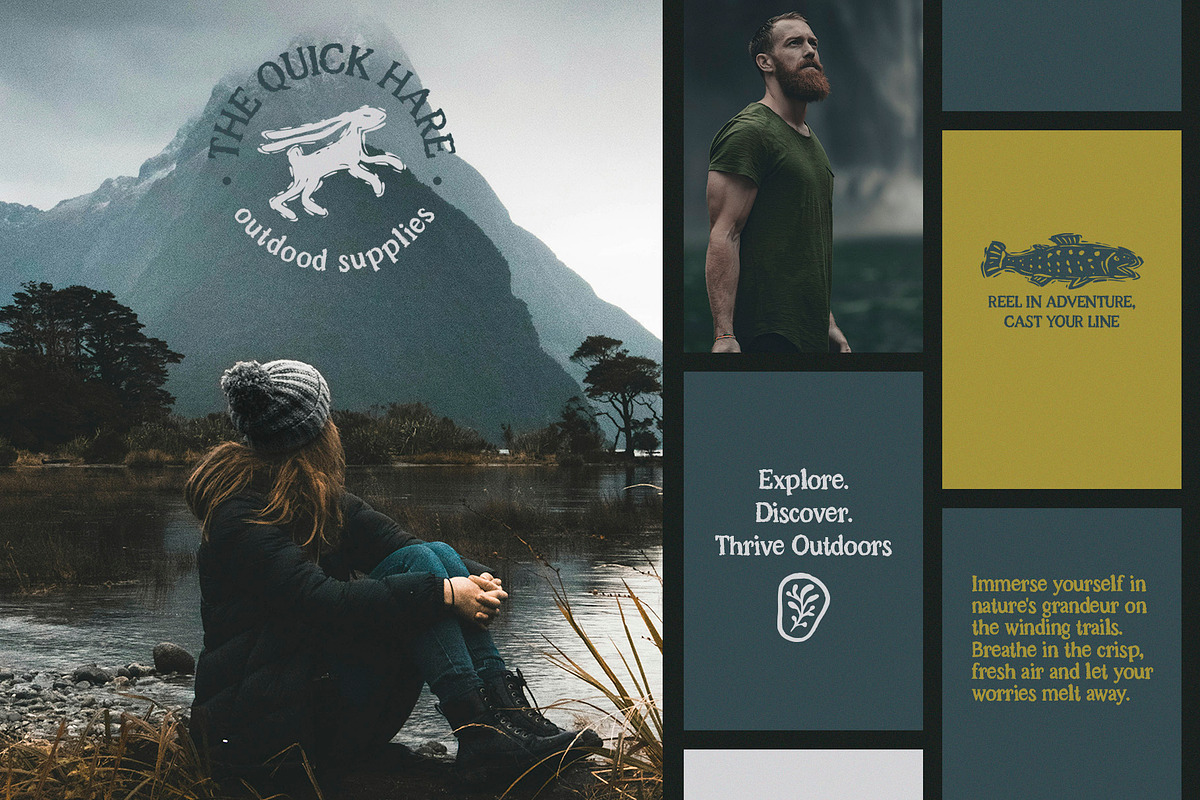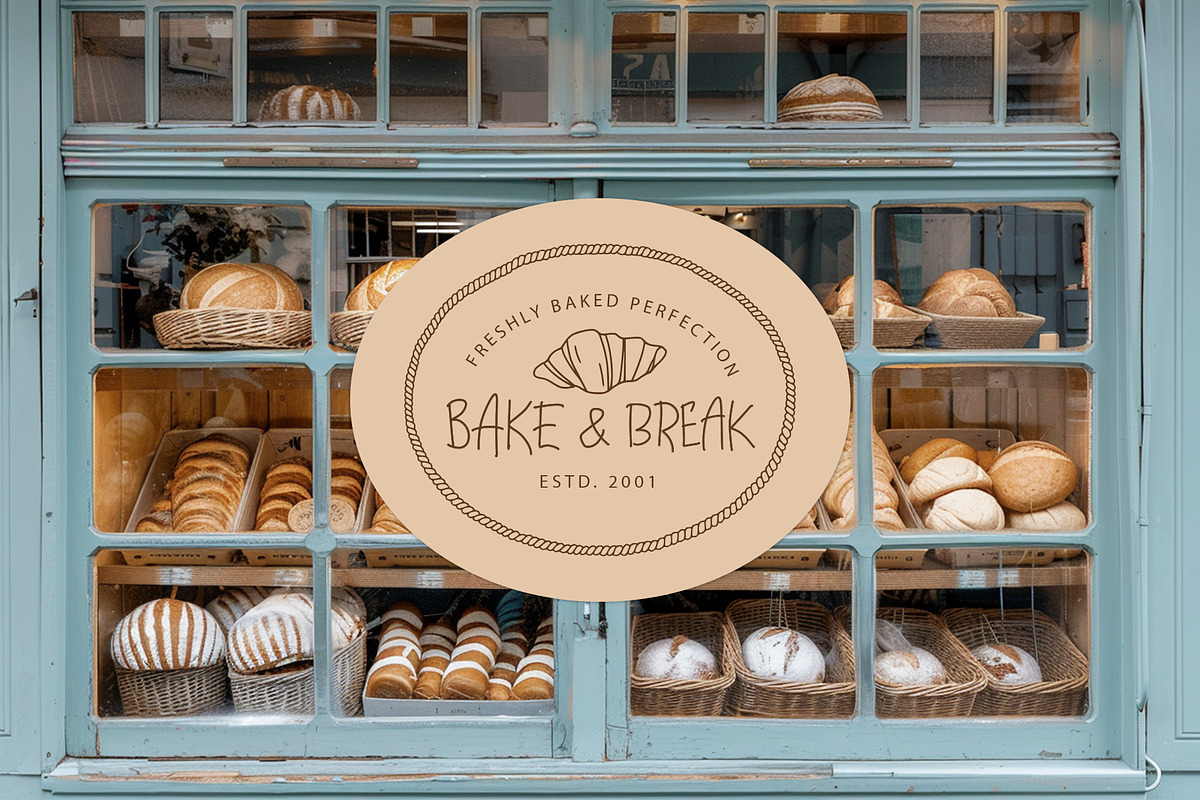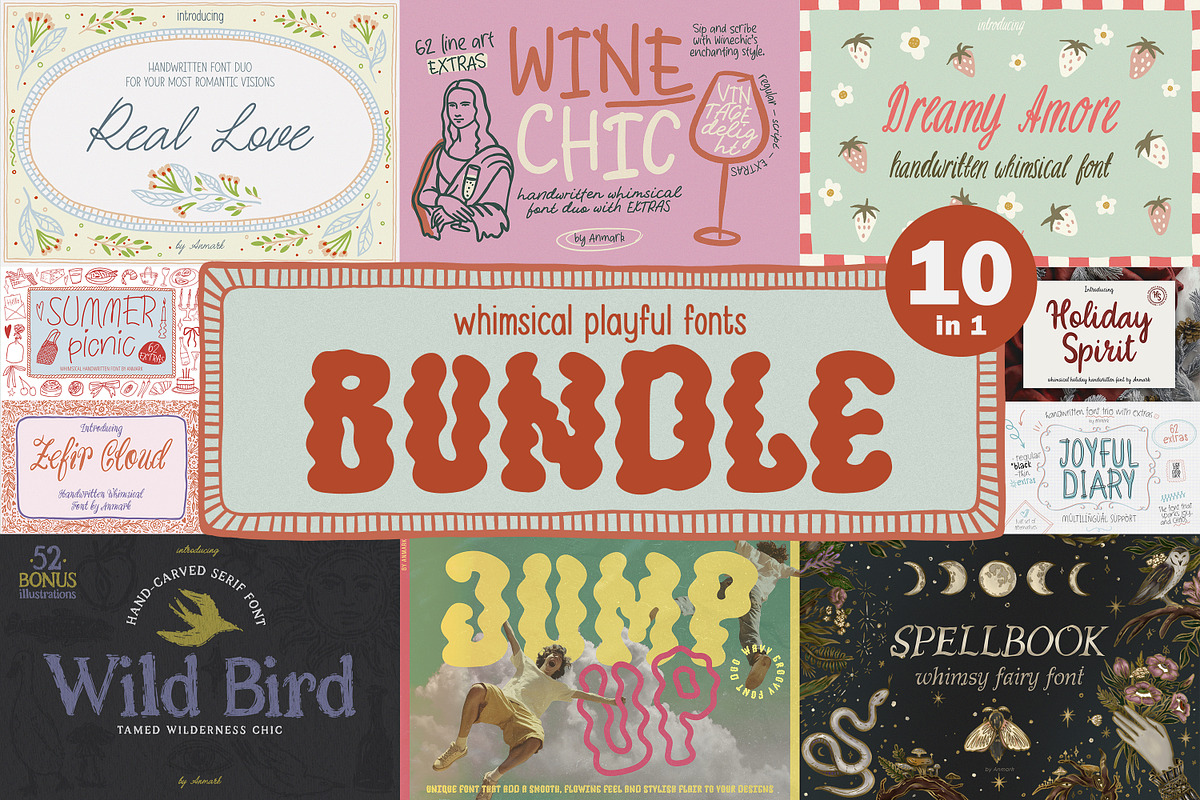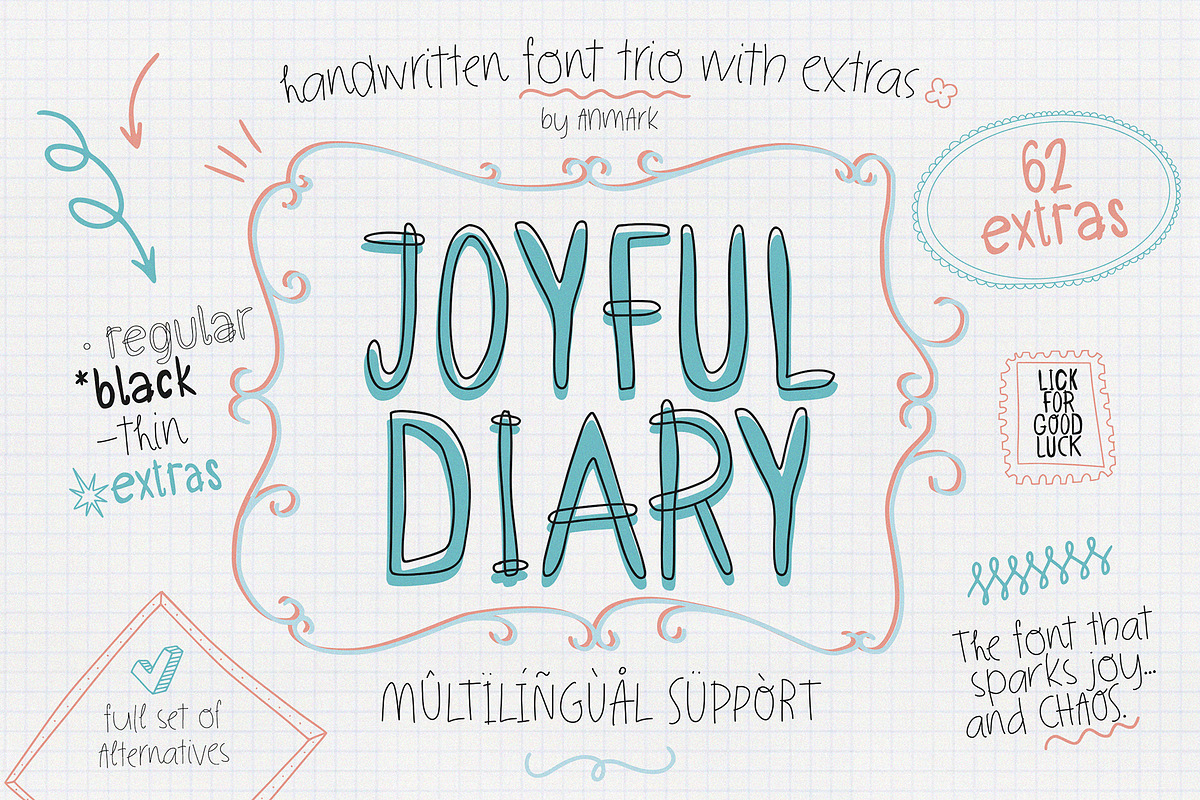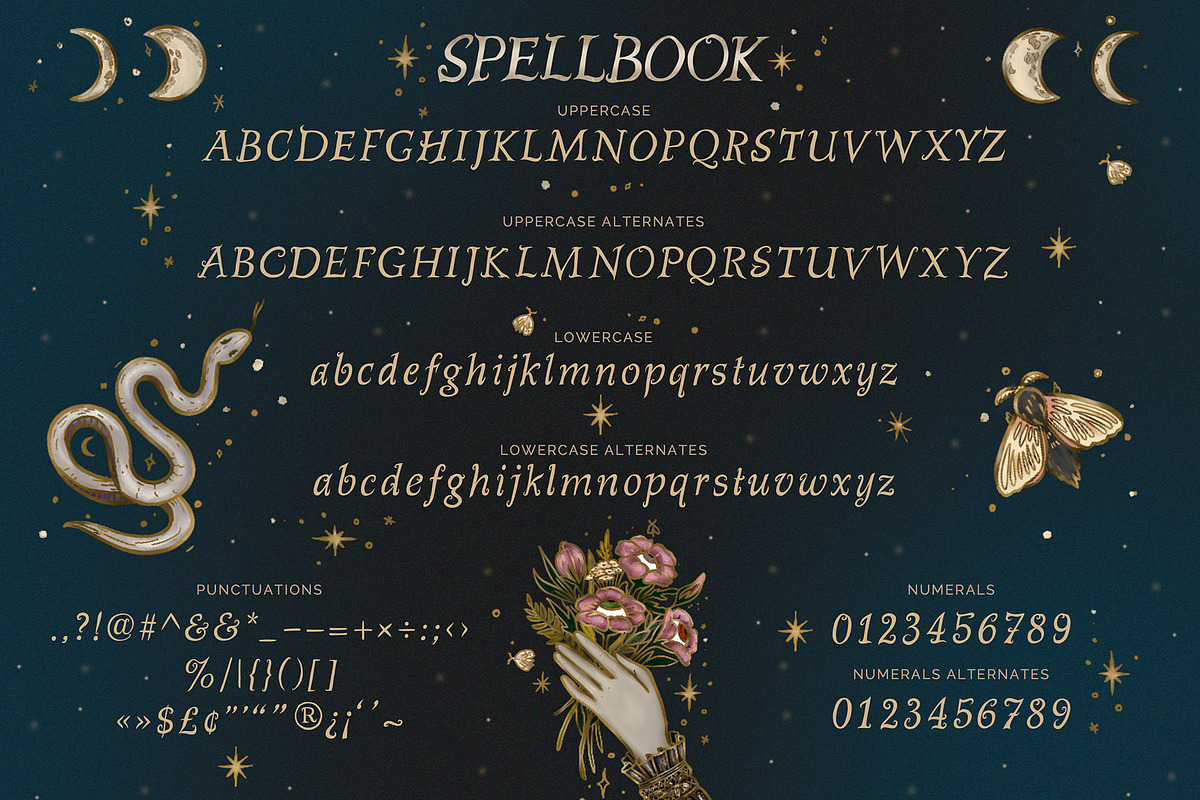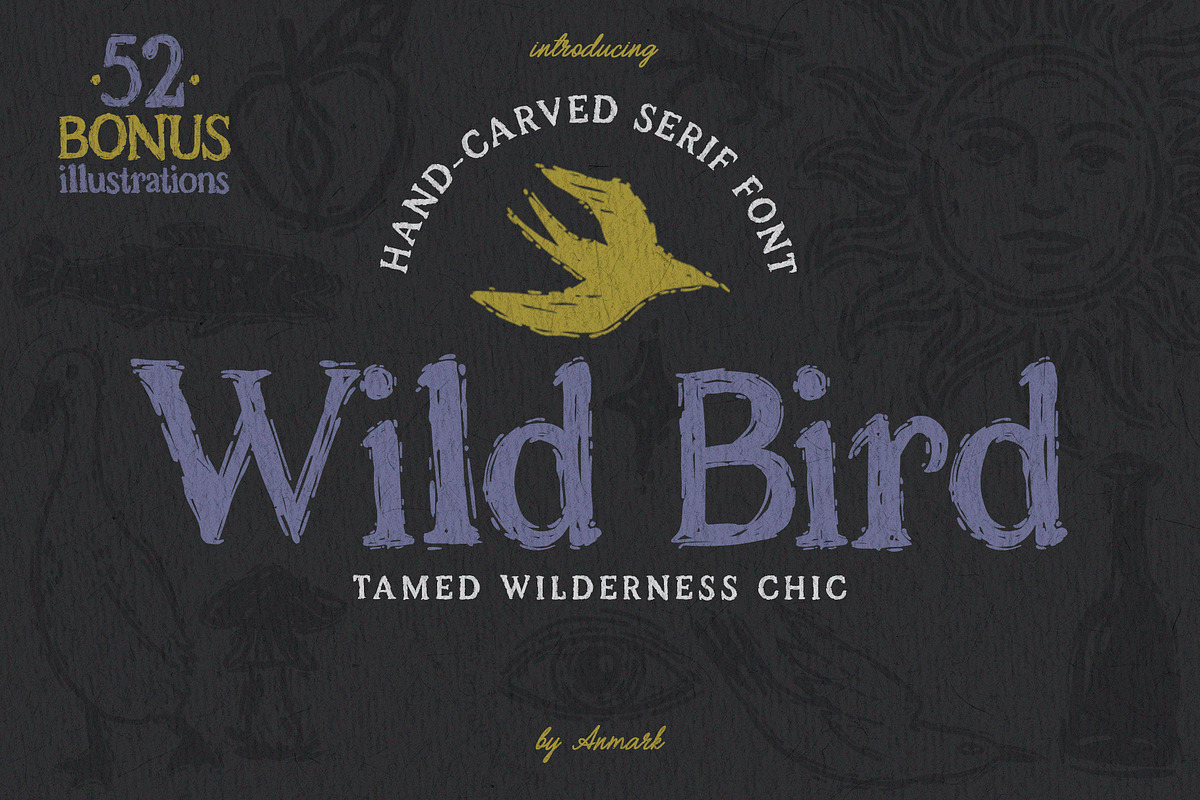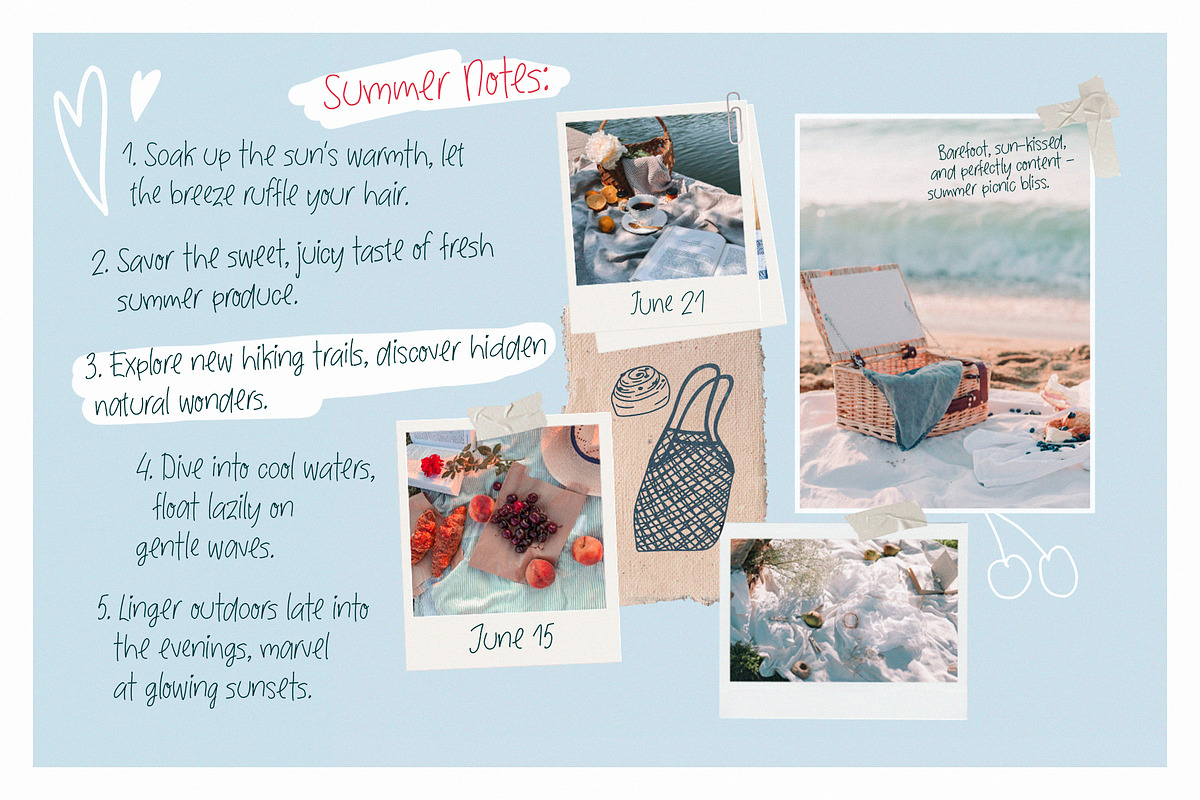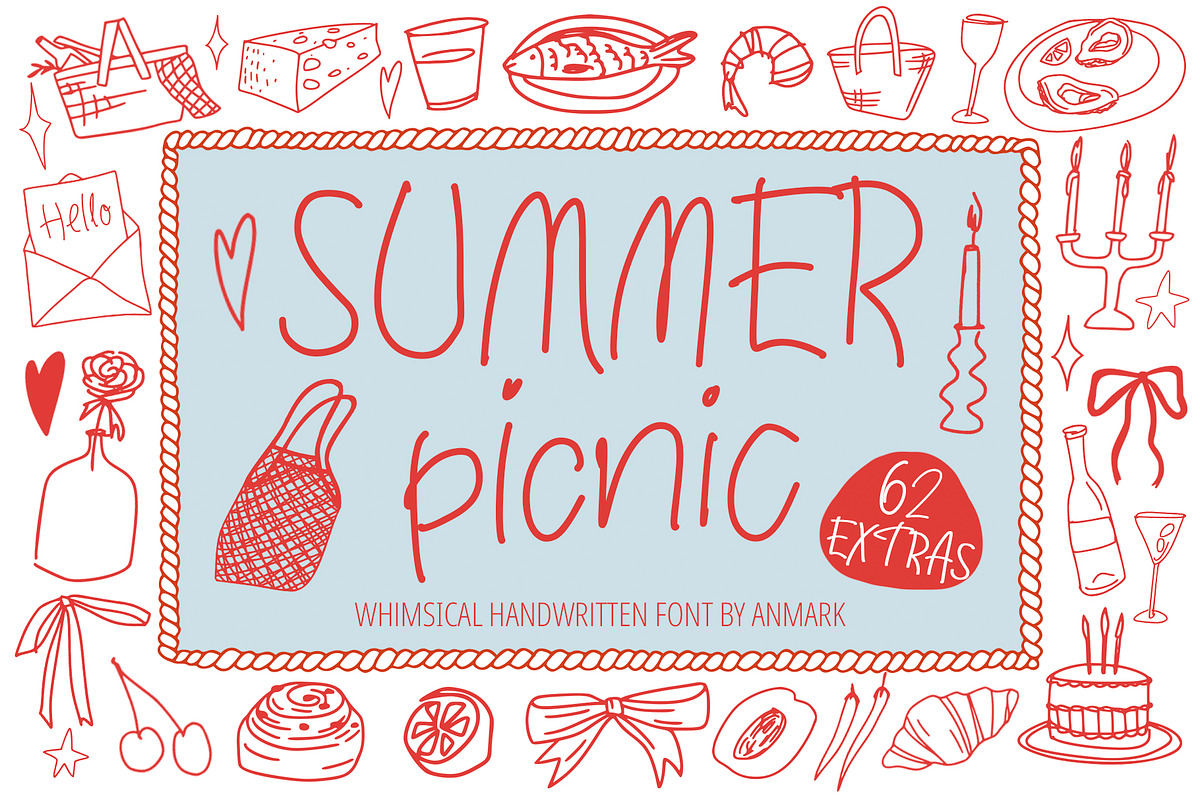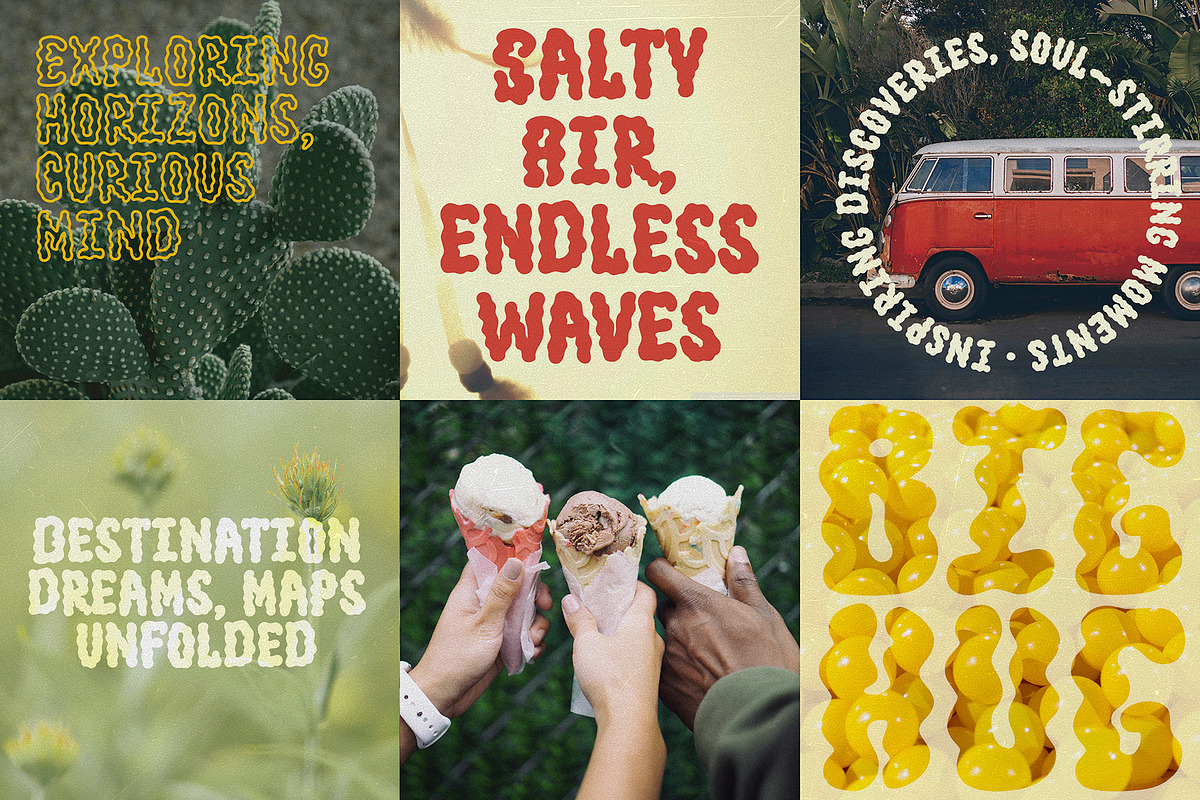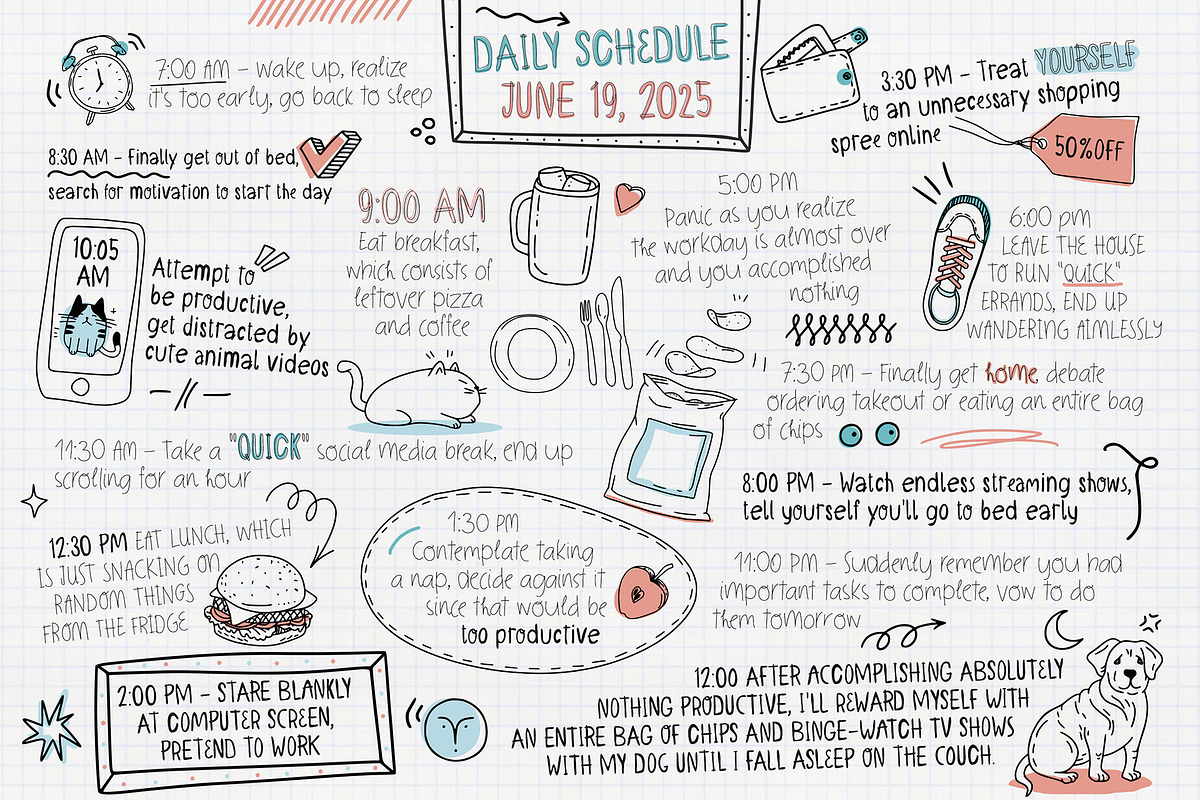
Whimsical Playful Font Bundle
This whimsical playful font BUNDLE 10 in 1 has it all! Featuring modern scripts, elegant calligraphy, and stylish sans serif fonts, it's perfect for any creative project. Whether you're designing logos, branding materials, websites, invitations, or stationery, you'll discover everything you need right here in this delightful package!